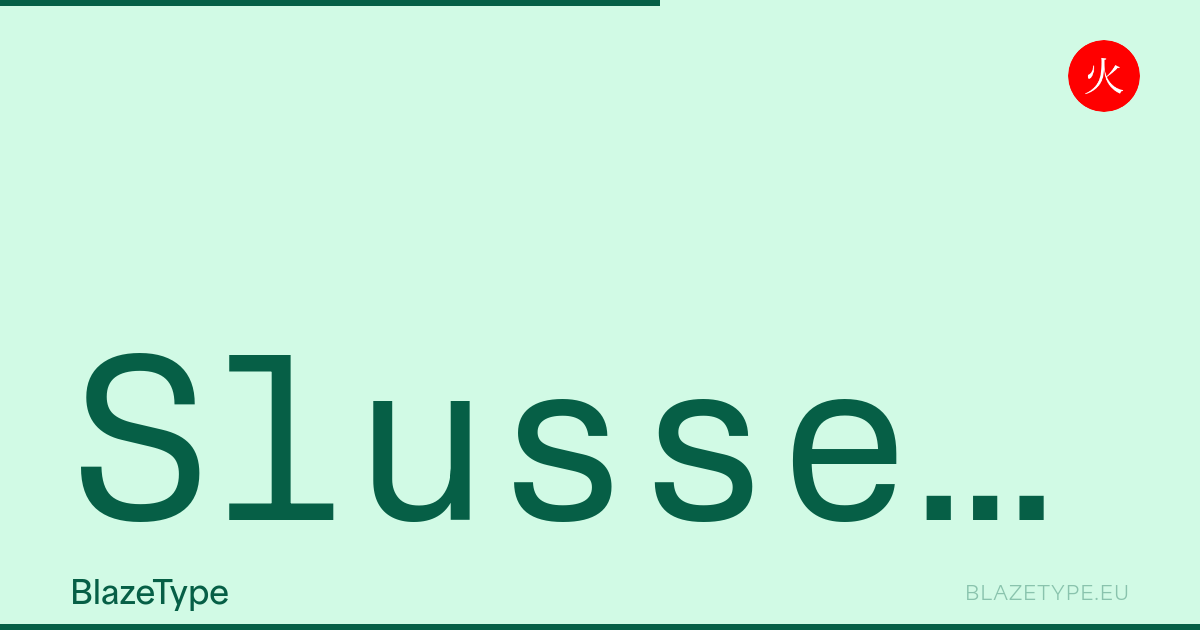
halvar mono
TypeMates
Halvar Mono expands the Halvar universe by taking the next logical step: re-engineering Halvar’s constructed forms, raw charm and machine precision into a…